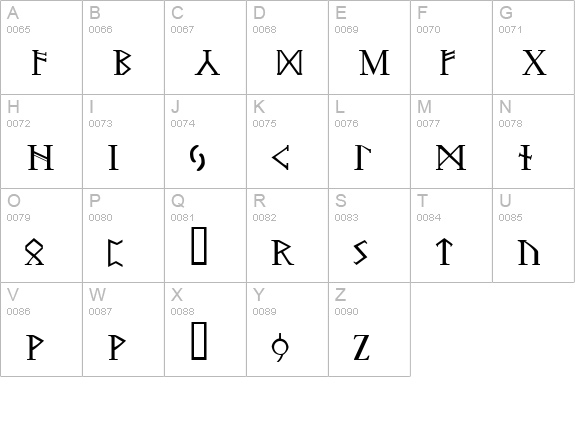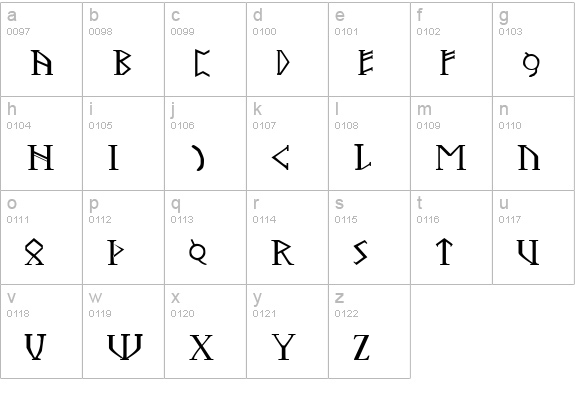
Troll Oathbound Font Details
Introducing Troll Oathbound, a captivating and enchanting font that will transport you to a world of fantasy and adventure. With its intricate and ornate design, this font is perfect for adding a touch of magic to your projects. Troll Oathbound is a unique and versatile font that captures the essence of ancient folklore and mythical creatures. Its bold and distinctive letterforms are reminiscent of ancient inscriptions on stone tablets, evoking a sense of mystery and wonder. This font is freely available to download at FontsMarket.com, making it accessible to all who seek to unleash their creativity without any constraints. Whether you're a graphic designer, a writer, or simply someone who wants to add a touch of enchantment to their everyday life, Troll Oathbound is the perfect companion. With its wide range of characters and exquisite detail, this font is ideal for creating eye-catching headlines, captivating book covers, mystical logos, and so much more. Its versatility allows you to bring your wildest imaginings to life, making every project truly unique and magical. Troll Oathbound is designed with utmost care and attention to detail, ensuring that every curve and line is perfectly crafted. Its flawless execution makes it easy to read and ensures that your message comes across loud and clear. Whether you're designing for print or digital media, this font will never fail to impress. So why wait? Unlock the power of Troll Oathbound and embark on a creative journey like no other. Download this remarkable font for free at FontsMarket.com and let your imagination run wild. With Troll Oathbound by your side, the possibilities are endless.